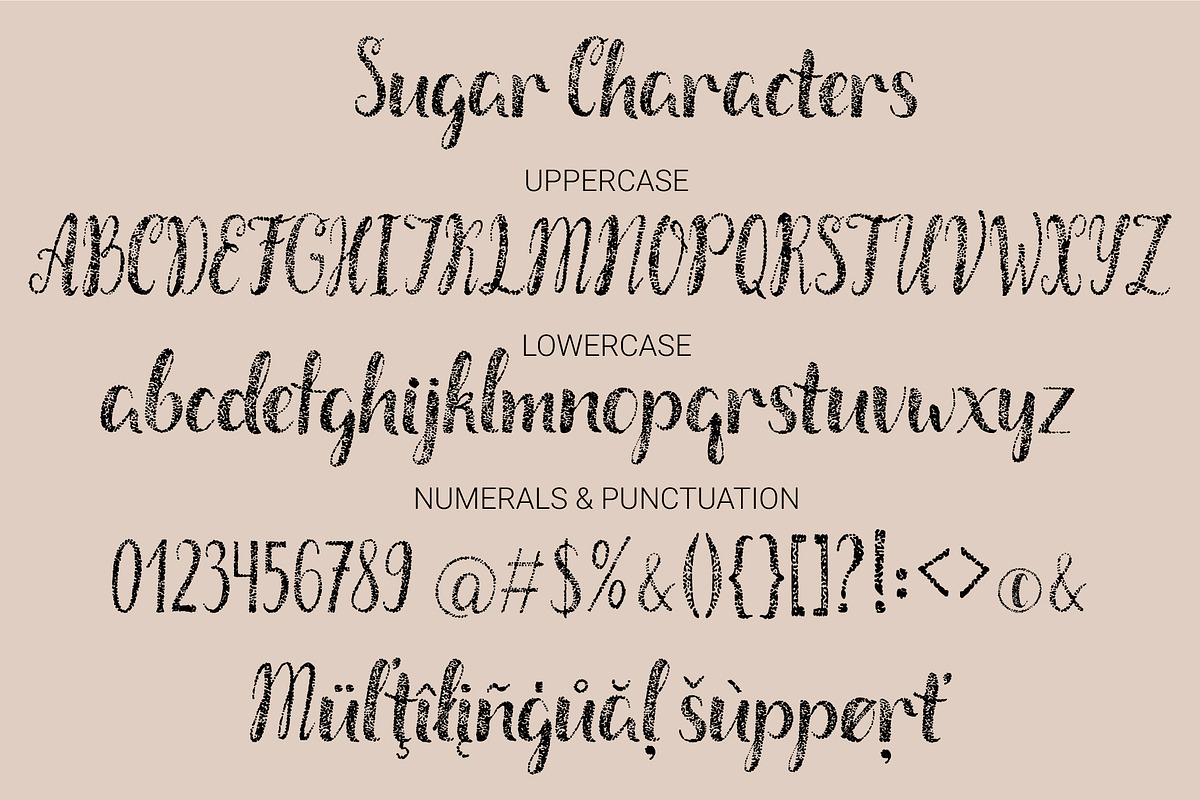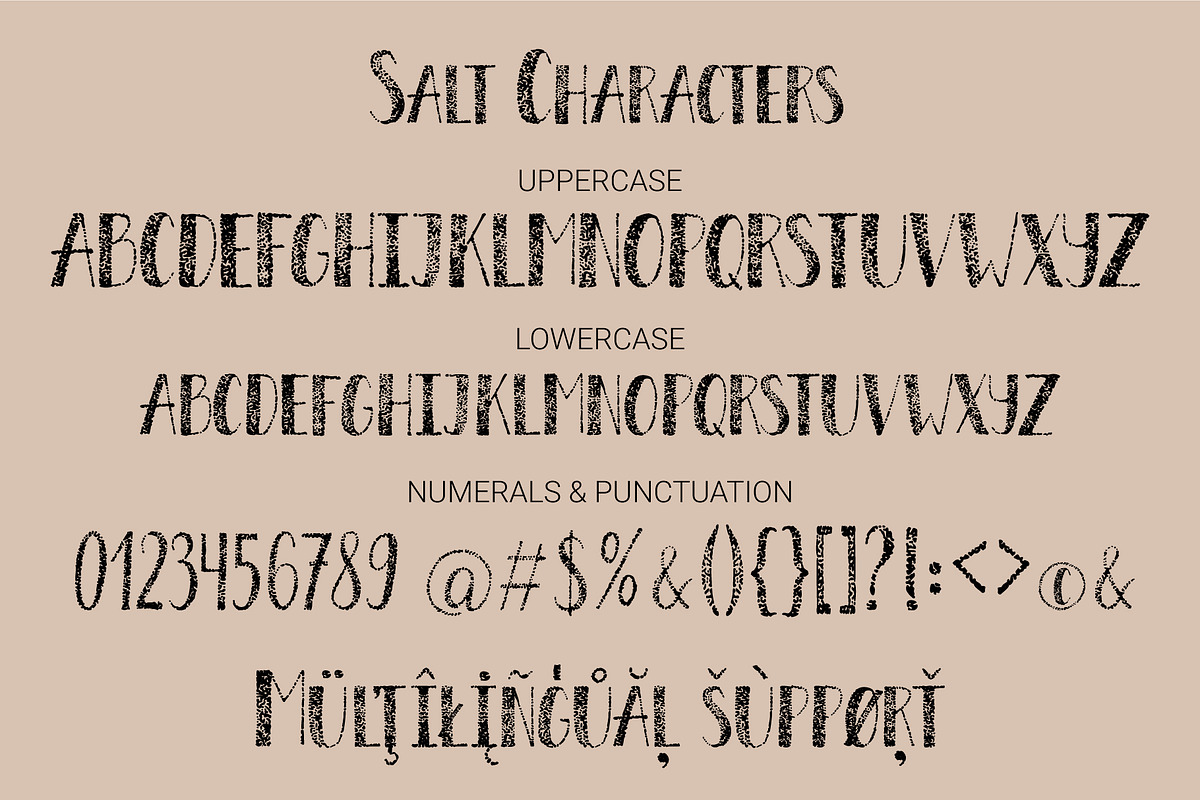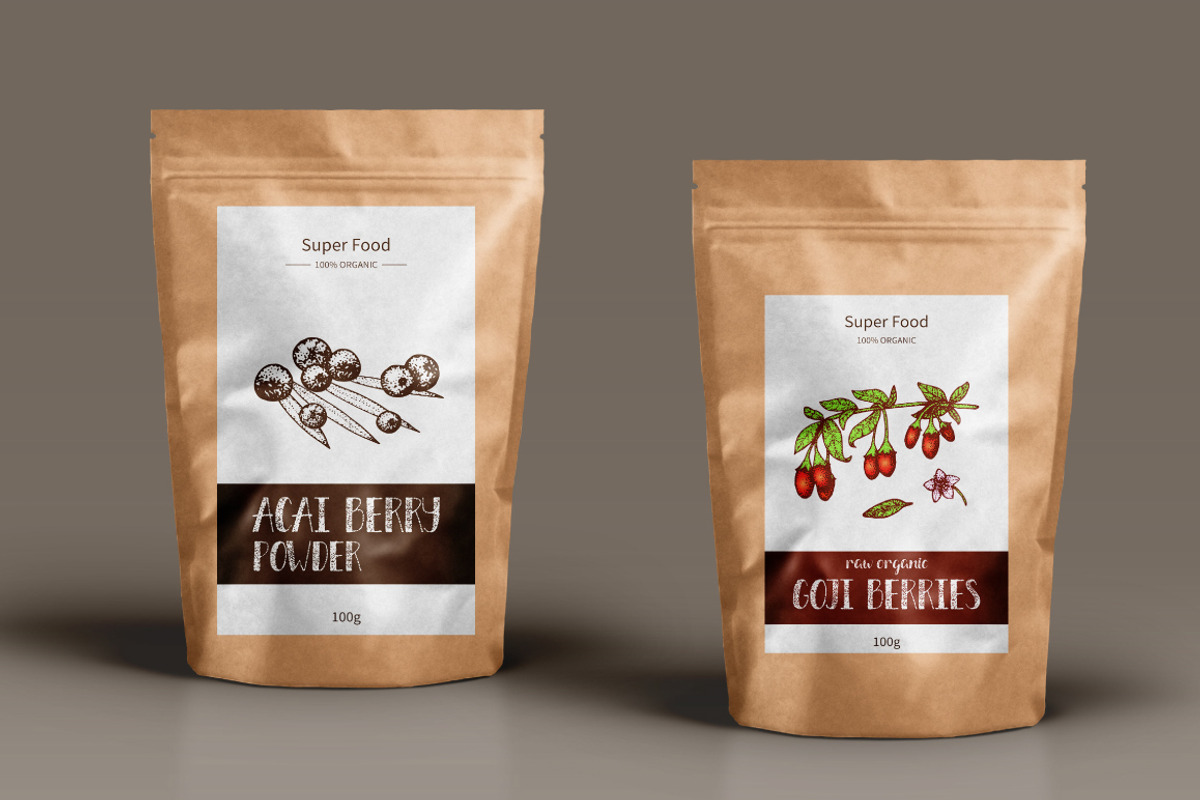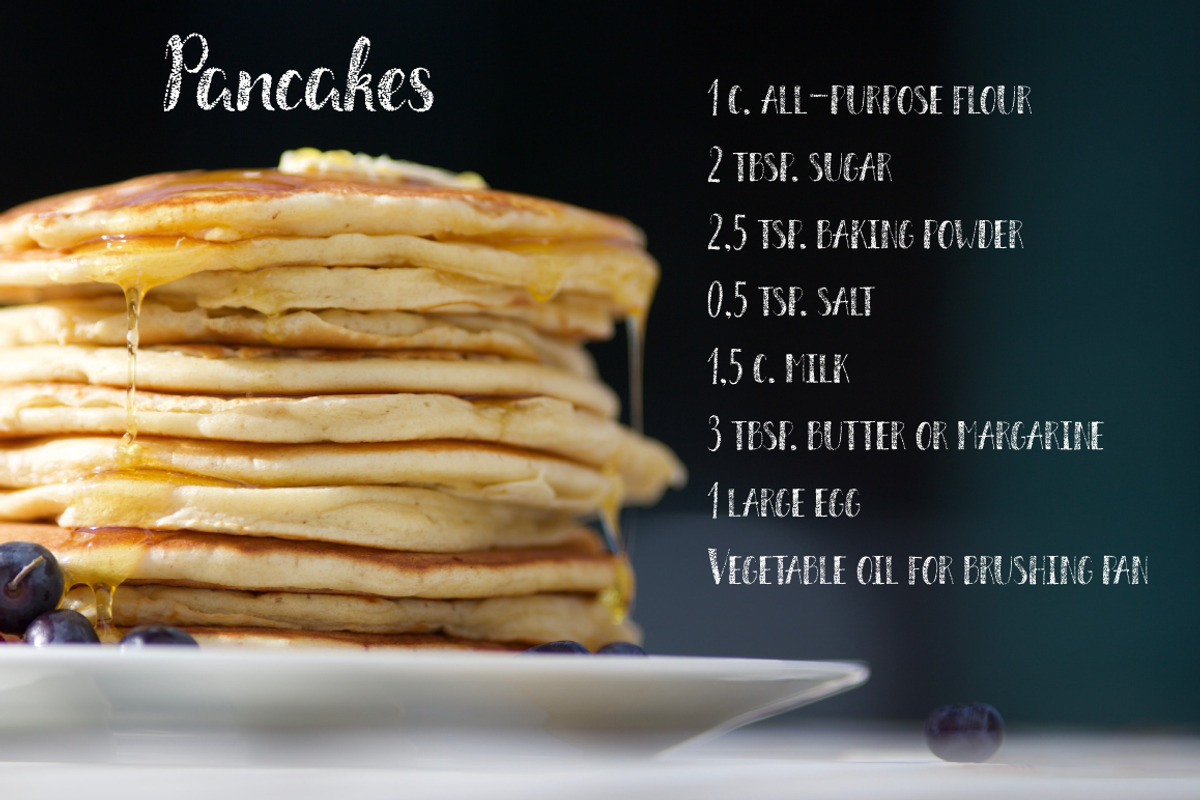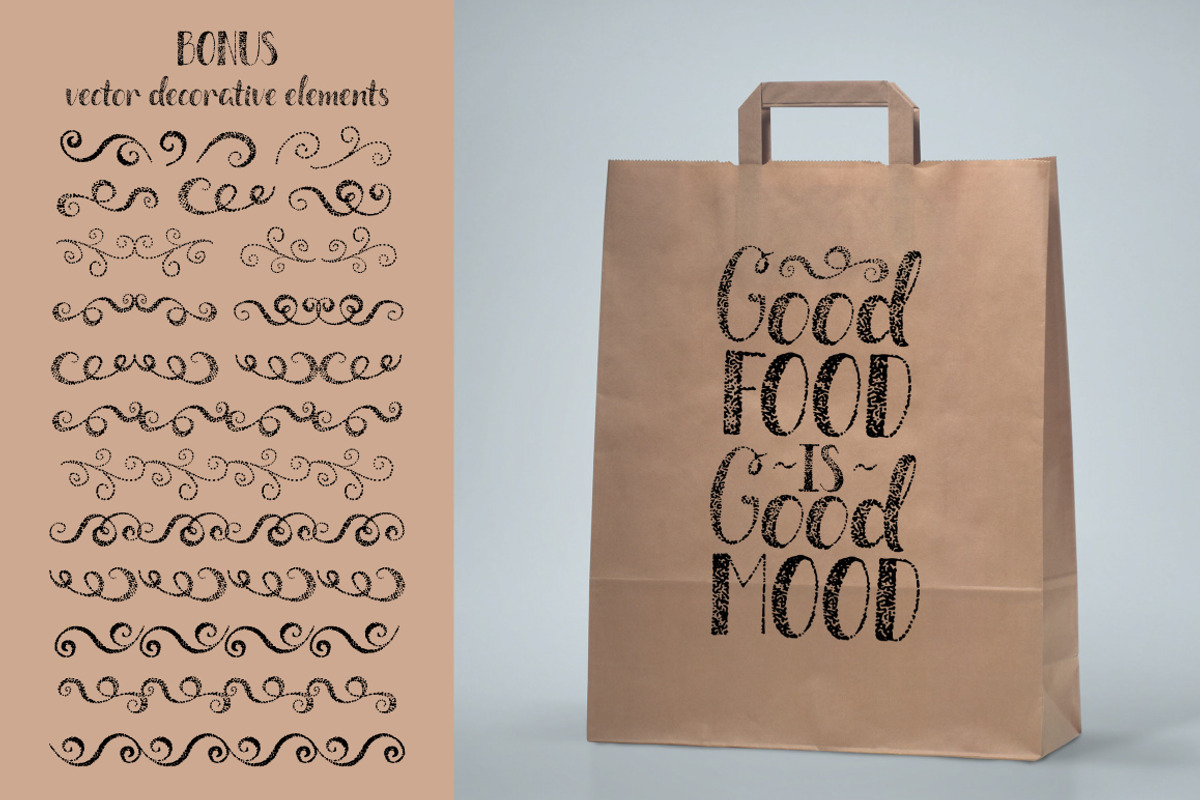
Salt & Sugar.Hand Drawn Font Duo
Salt & Sugar.Hand Drawn Font Duo by NinaFedorova is a font selected for branding, posters, packaging, typography.
- Salt & Sugar is a handwritten font duo (sans serif and script) in uppercase and lowercase.
- Salt Regular
- Sugar Regular
Why Salt & Sugar.Hand Drawn Font Duo is worth a look
Salt & Sugar.Hand Drawn Font Duo by NinaFedorova fits naturally into Branding, posters, packaging, typography.